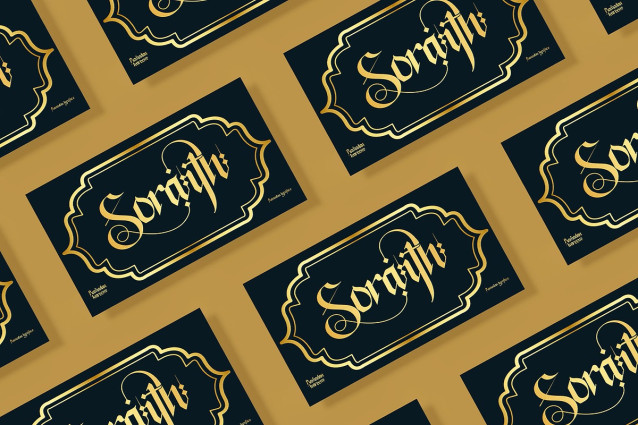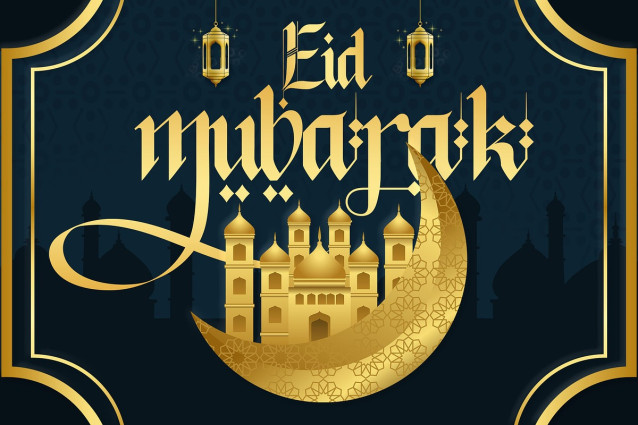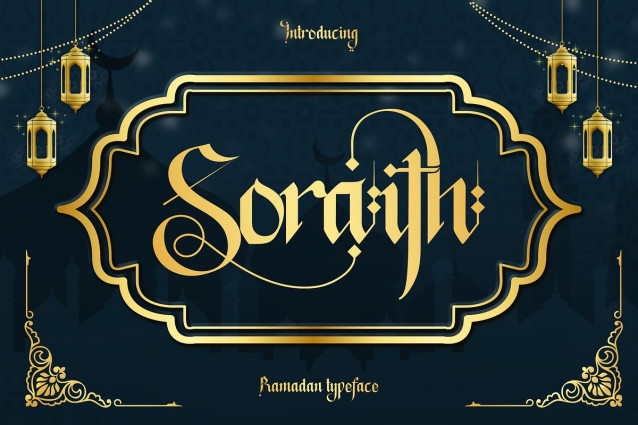
Soraith Font
Soraith Font is a bold blackletter typeface inspired by Arabic calligraphy and Islamic ornaments. Designed with Ramadan and Islamic themes in mind, it features elegant alternates, sharp ligatures, and rich stylistic sets. Perfect for festive designs, Eid greetings, mosque branding, packaging, and more—Soraith brings spiritual elegance and a Middle Eastern vibe to your typography projects.